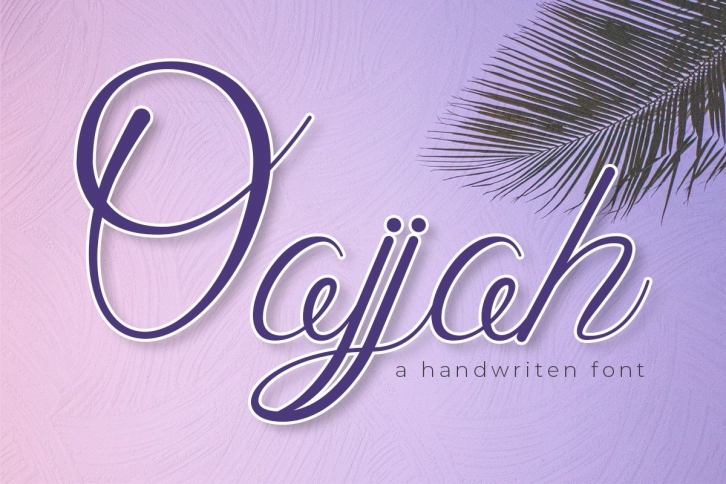
Oajjah is a flowing handwritten font crafted with an elegant touch. This font is the best choice for creating catchy logos, branding, and quotes. Each letter has a unique and beautiful touch, which will make your designs come alive and interesting.